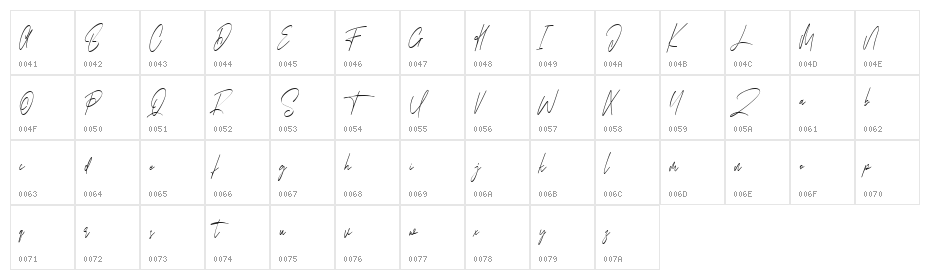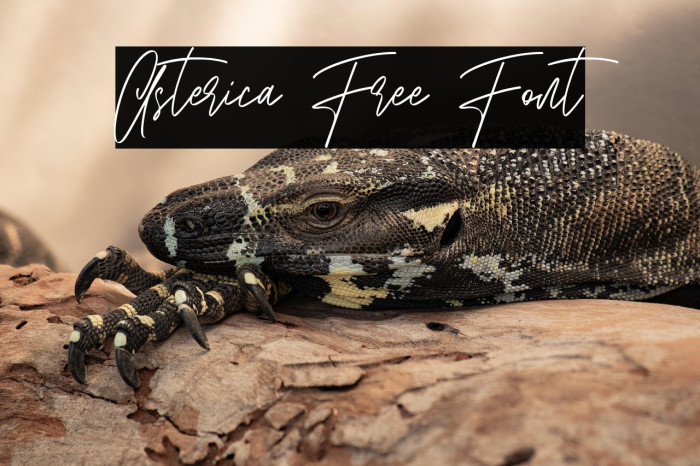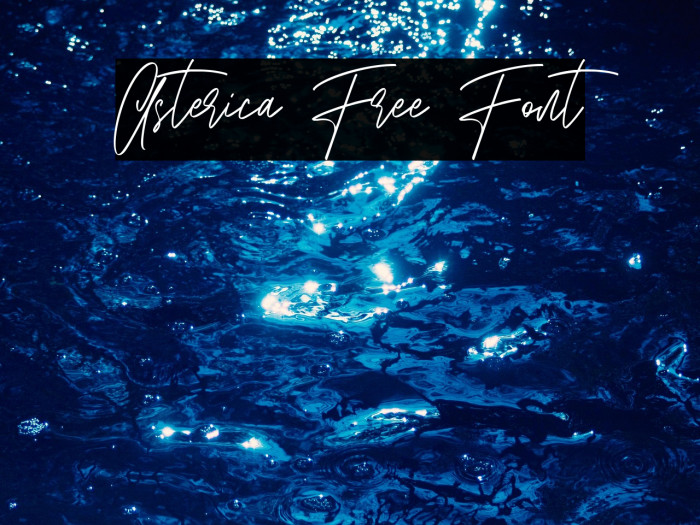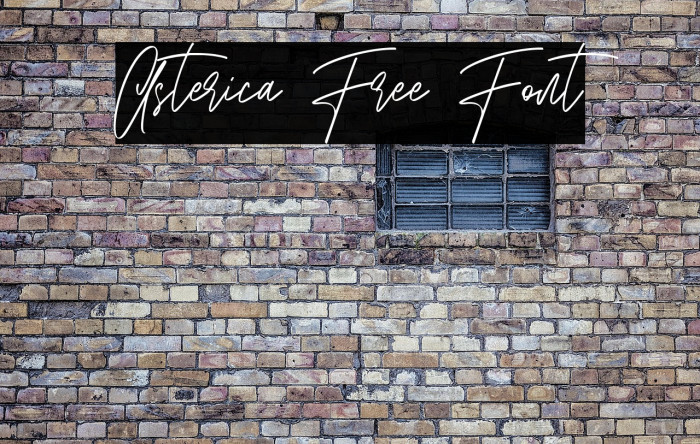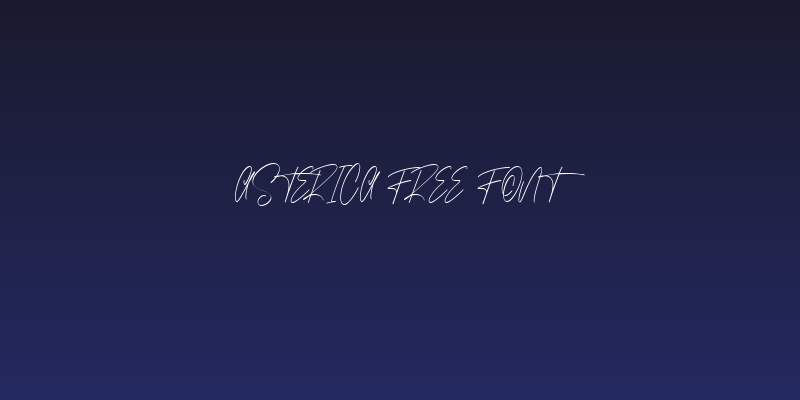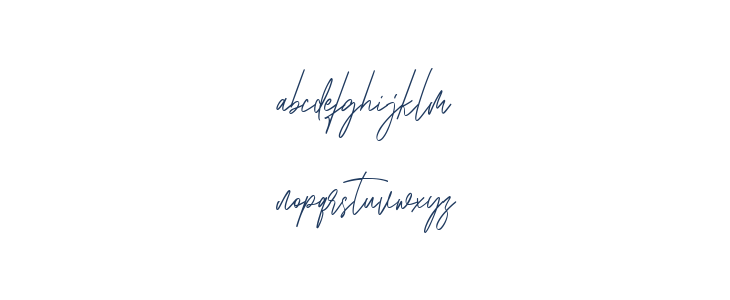
Asterica Free Font Font
Asterica Free Font Description
This font features a dynamic and expressive handwritten style with a modern flair. The letters are elegantly elongated and interconnected, giving a sense of fluidity and movement. The strokes are thin and delicate, adding a touch of sophistication and grace. The uppercase and lowercase letters maintain a consistent flow, while the overall design exudes a casual yet refined aesthetic. This font's unique character is perfect for adding a personal touch to any design project.
| Proposed Projects | Ideal for wedding invitations, personal branding, social media graphics, and creative projects that require a personal touch. |